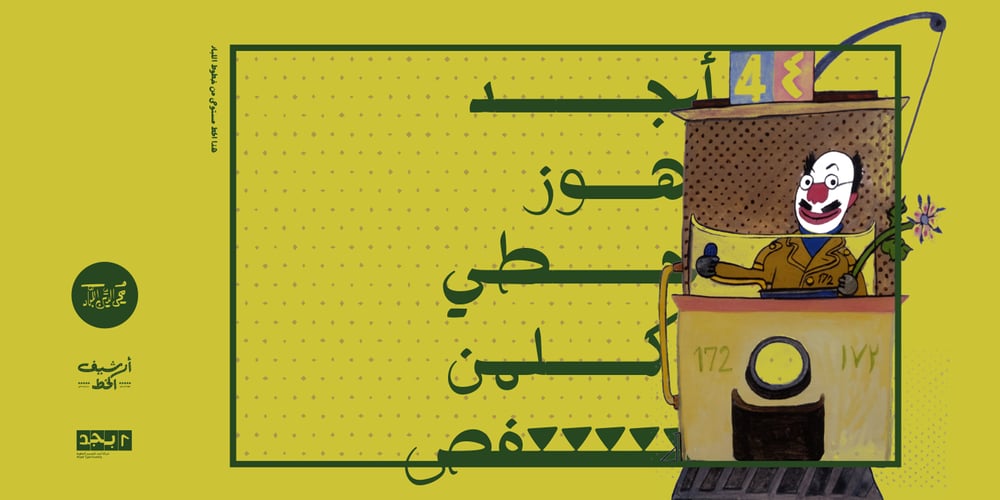
Allabbad Font Family was designed by Ali Almasri and published by Abjad. Allabbad contains 1 styles and family package options. Allabbad typeface was inspired by one of the hand letterings that belong to the godfather of Arab graphic design, Mohieddine Allabbad. The typeface is part of the Arsheef Alkhatt Project, a platform that revives and tributes classical Arabic lettering from different resources and presents them as affordable, digital fonts for independent designers.